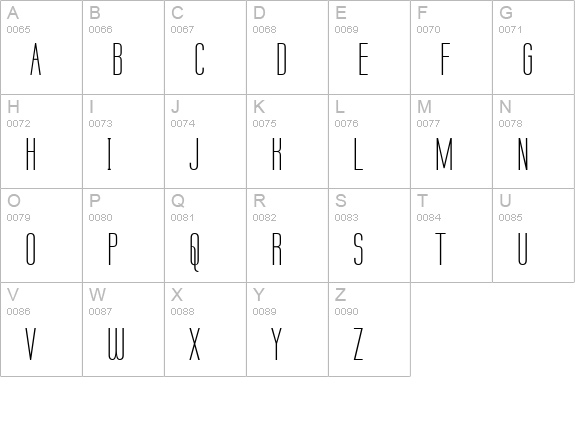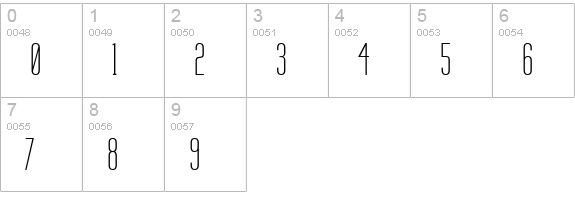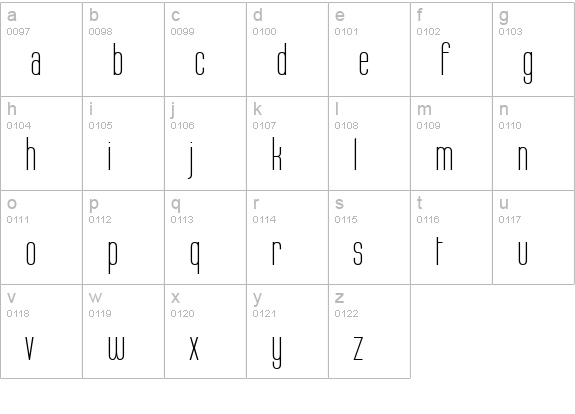
Introducing Labtop font, a captivating and versatile typeface that will elevate your designs to new heights. With its clean lines and modern appeal, Labtop is the perfect choice for a wide range of projects, from logos and branding to website design and print materials. Labtop font strikes the perfect balance between sleek elegance and contemporary sophistication, making it suitable for both professional and creative endeavors. Its carefully crafted letterforms exude professionalism and attention to detail, while its subtle curves and distinctive angles add a touch of personality and uniqueness. But what truly sets Labtop font apart is its accessibility. This incredible font is freely available to download at FontsMarket.com, making it accessible to designers and creatives of all levels. Now, you can bring your visions to life without breaking the bank, as Labtop font offers the perfect combination of quality and affordability. Whether you're working on a corporate project, a personal blog, or a creative endeavor, Labtop font has the versatility to adapt to any style or theme. Its extensive character set includes uppercase and lowercase letters, numerals, punctuation marks, and special symbols, ensuring that you have all the tools you need to create stunning designs. Labtop font is designed with legibility in mind, ensuring that your message is delivered clearly and effectively. Its balanced proportions and carefully spaced letterforms guarantee optimal readability, even at smaller sizes or on screens of various resolutions. With Labtop font, you'll not only enhance the visual impact of your designs but also streamline your workflow. Its compatibility with various design software and operating systems allows for seamless integration into your existing projects. Say goodbye to compatibility issues and hello to effortless creativity. So why wait? Experience the power and versatility of Labtop font today. Download it for free at FontsMarket.com and unlock a world of design possibilities. Whether you're a seasoned professional or just starting your creative journey, Labtop font is here to elevate your designs, inspire your audience, and make a lasting impression.